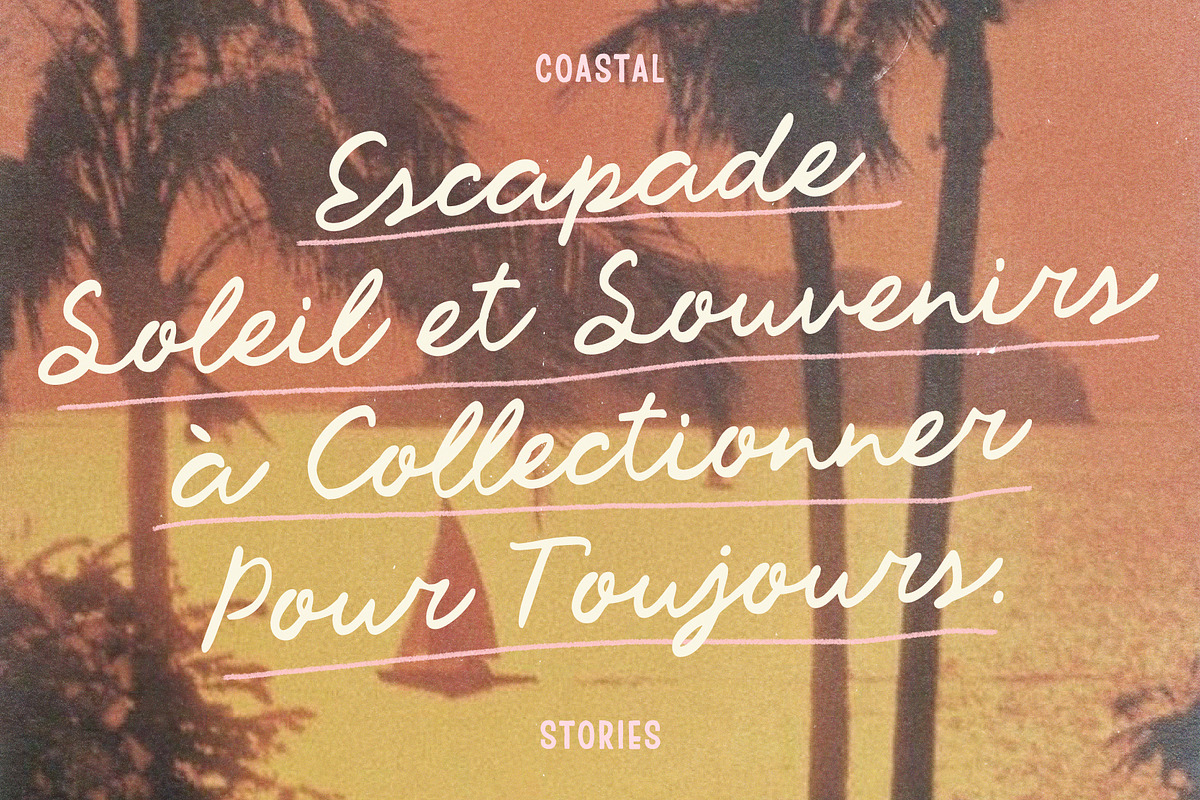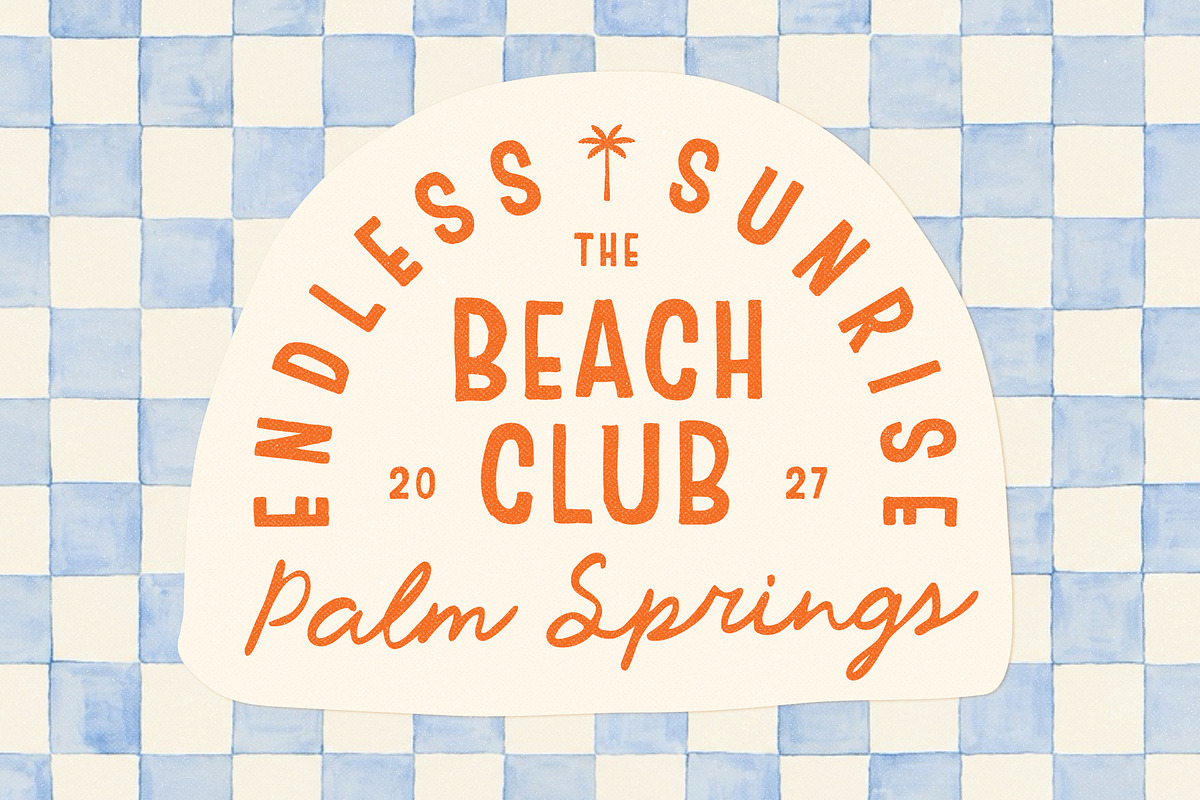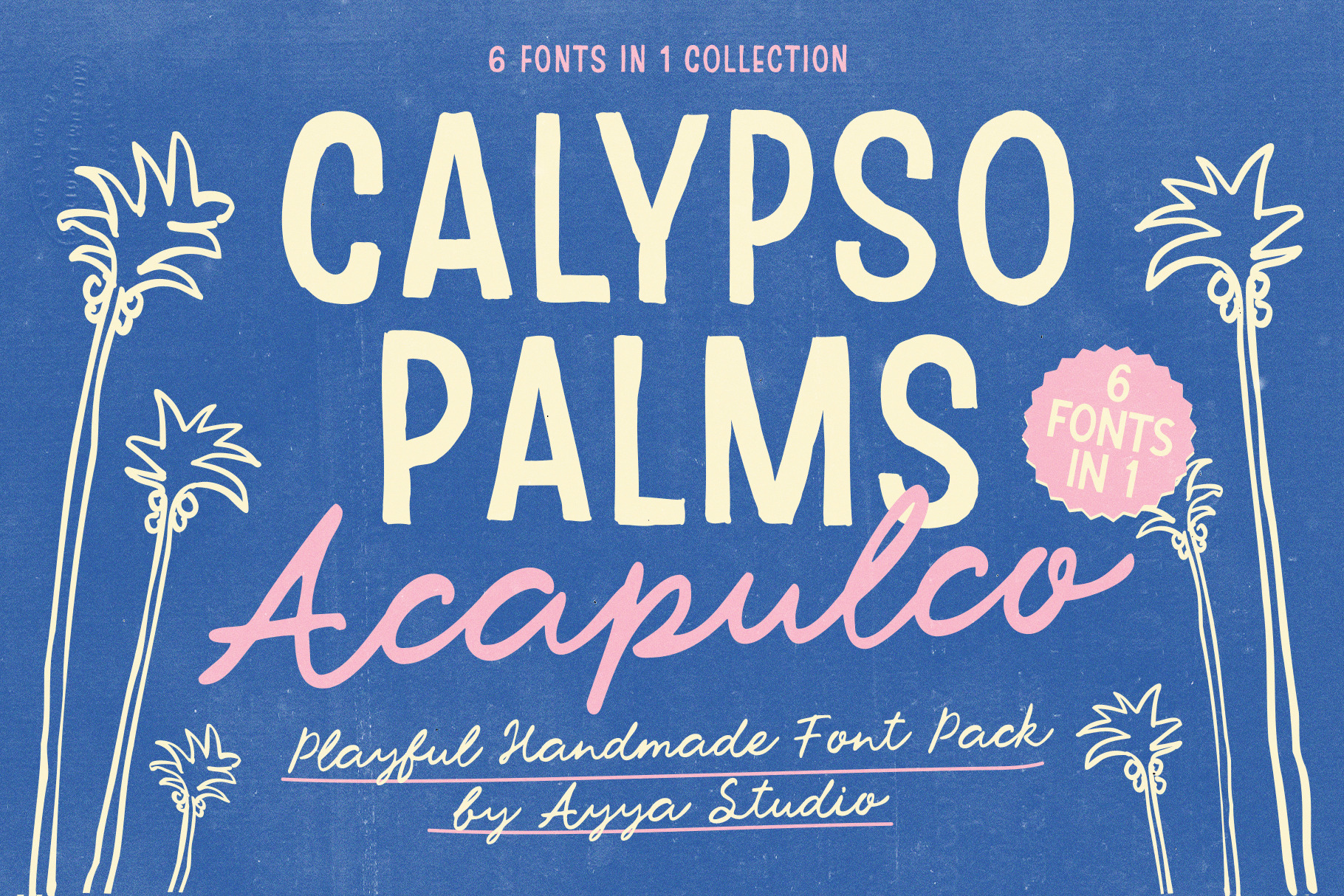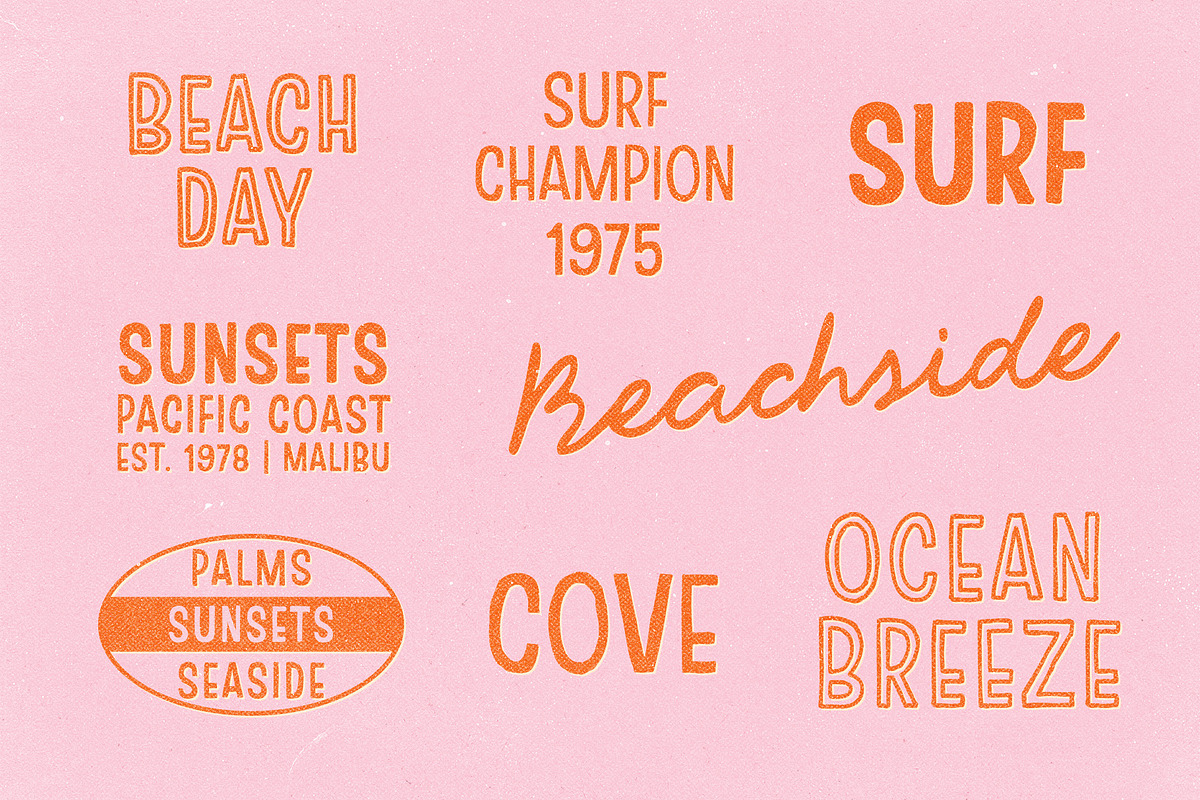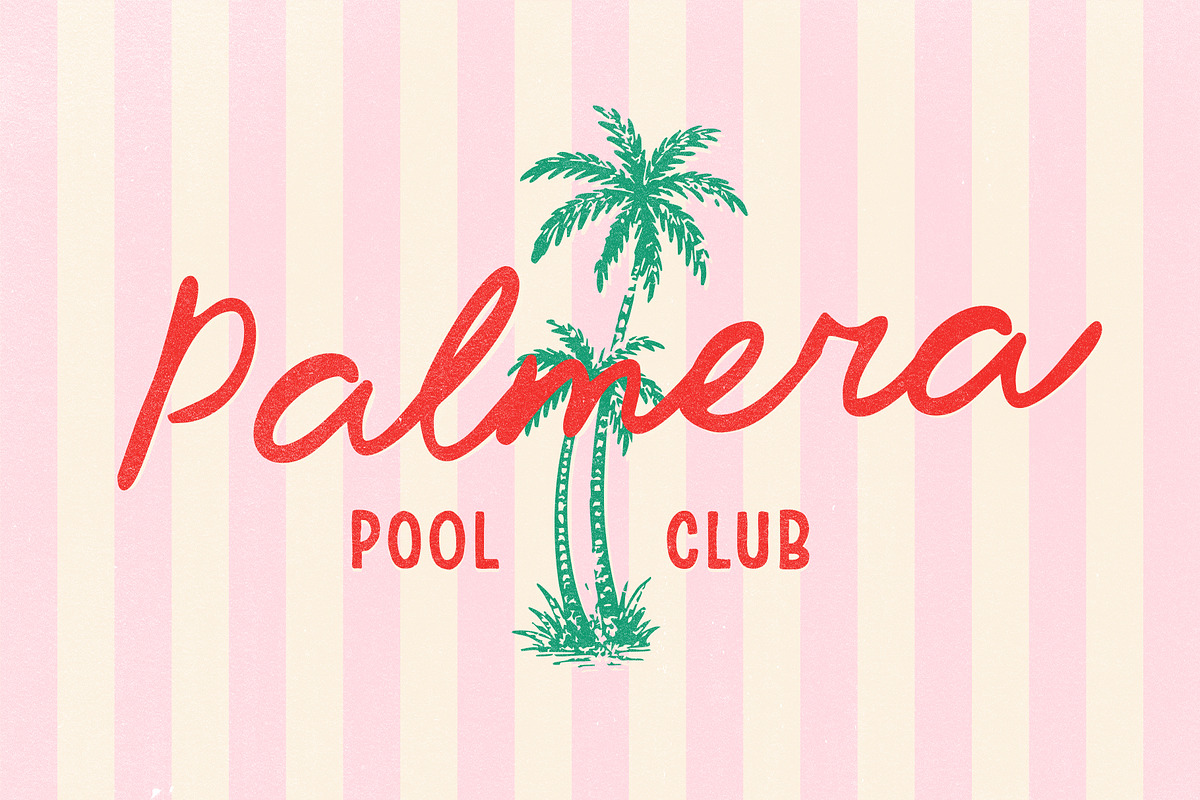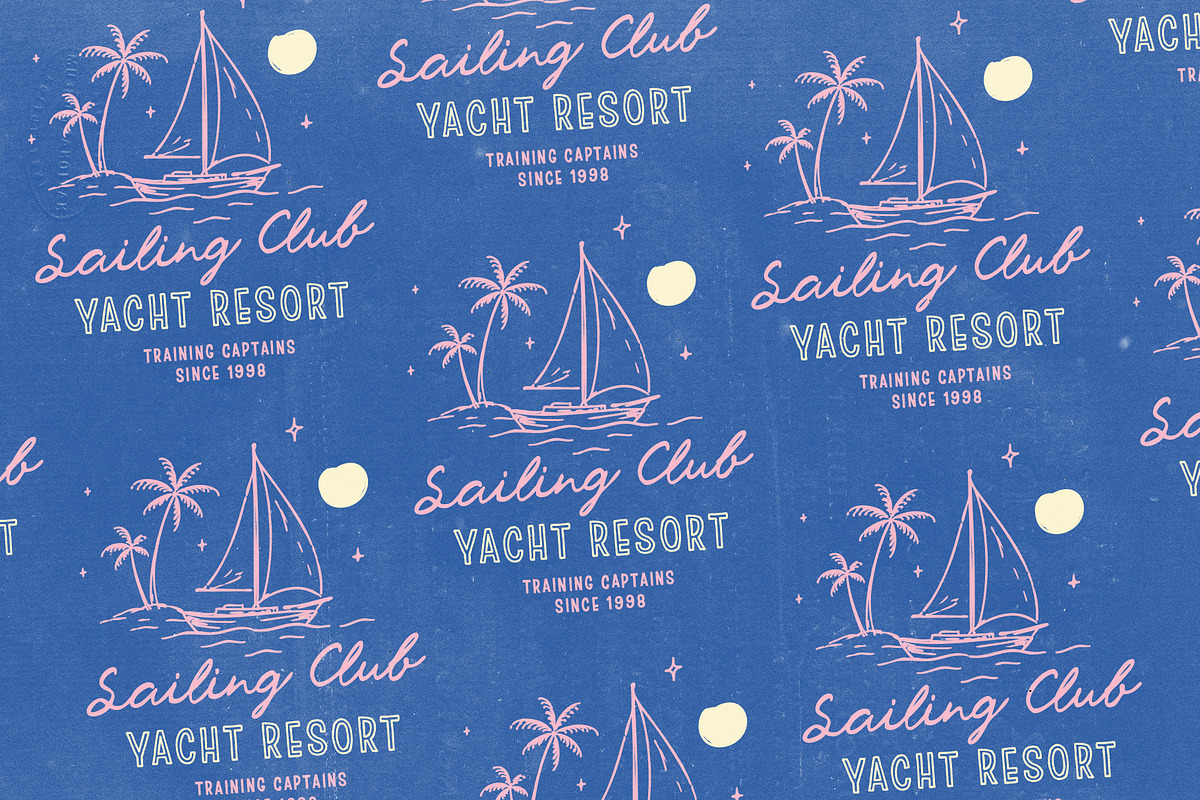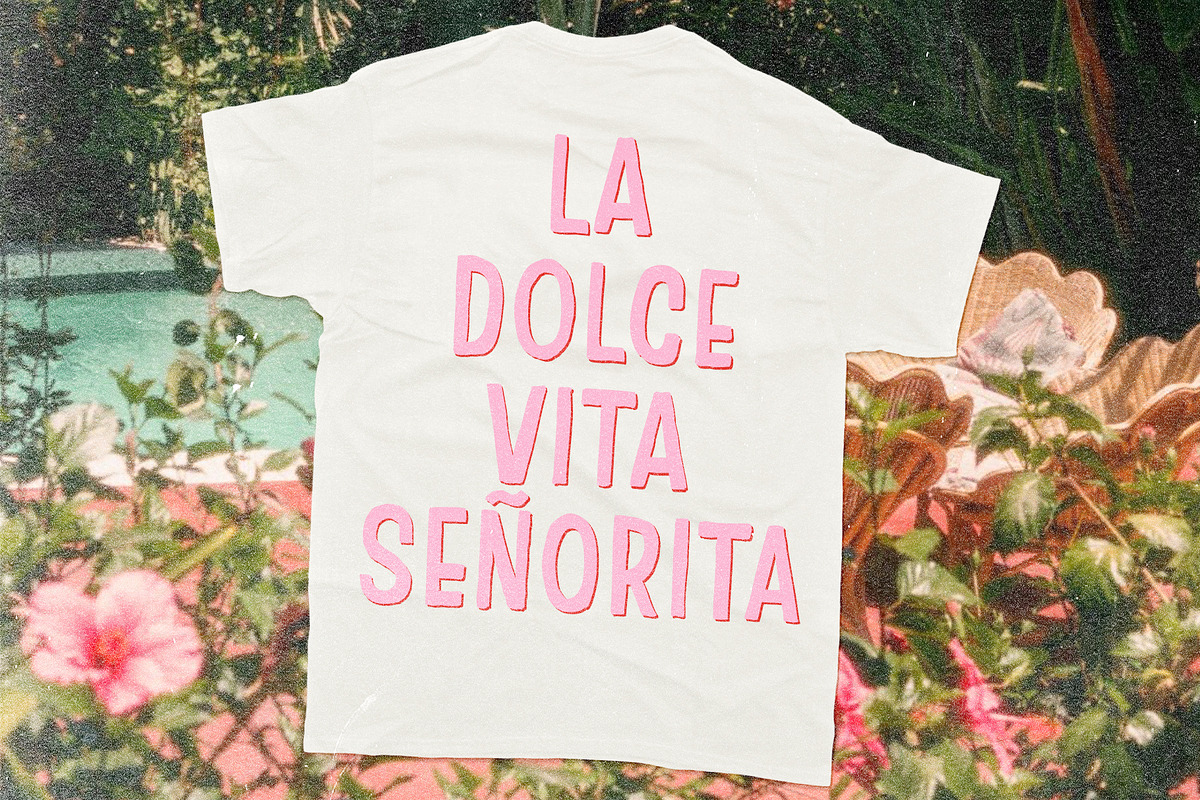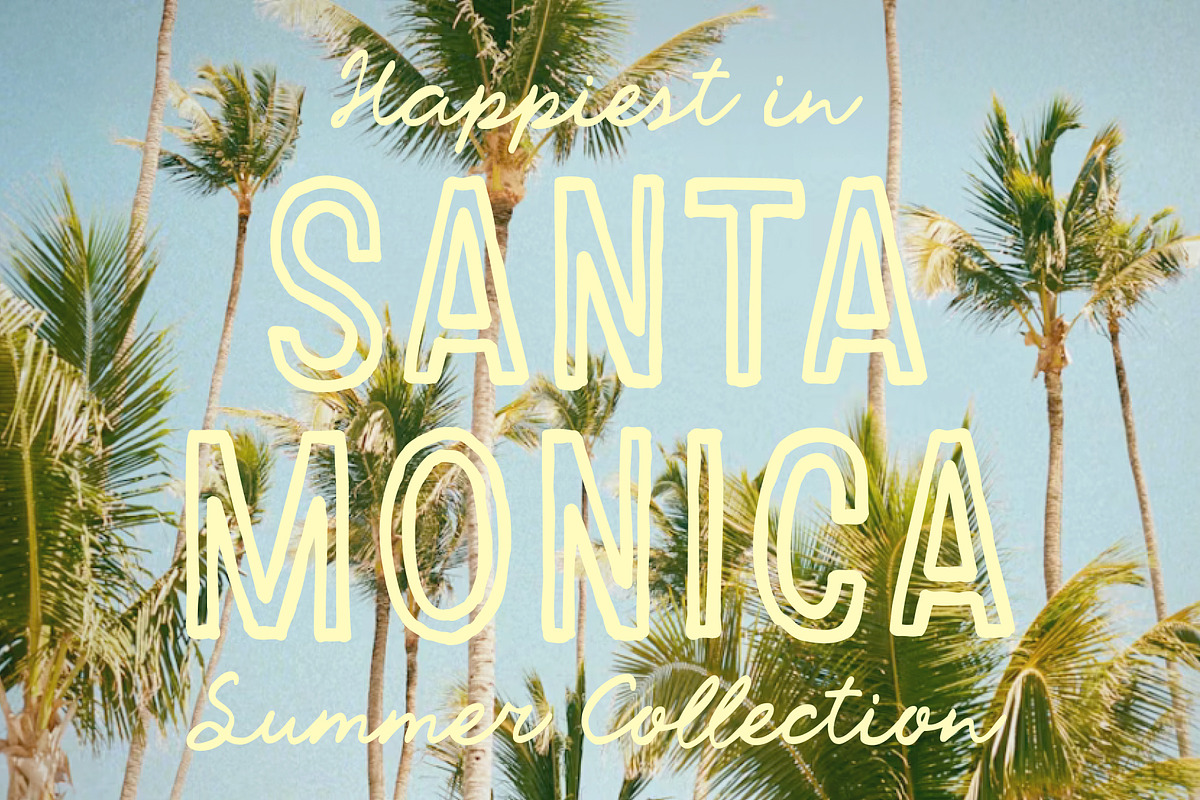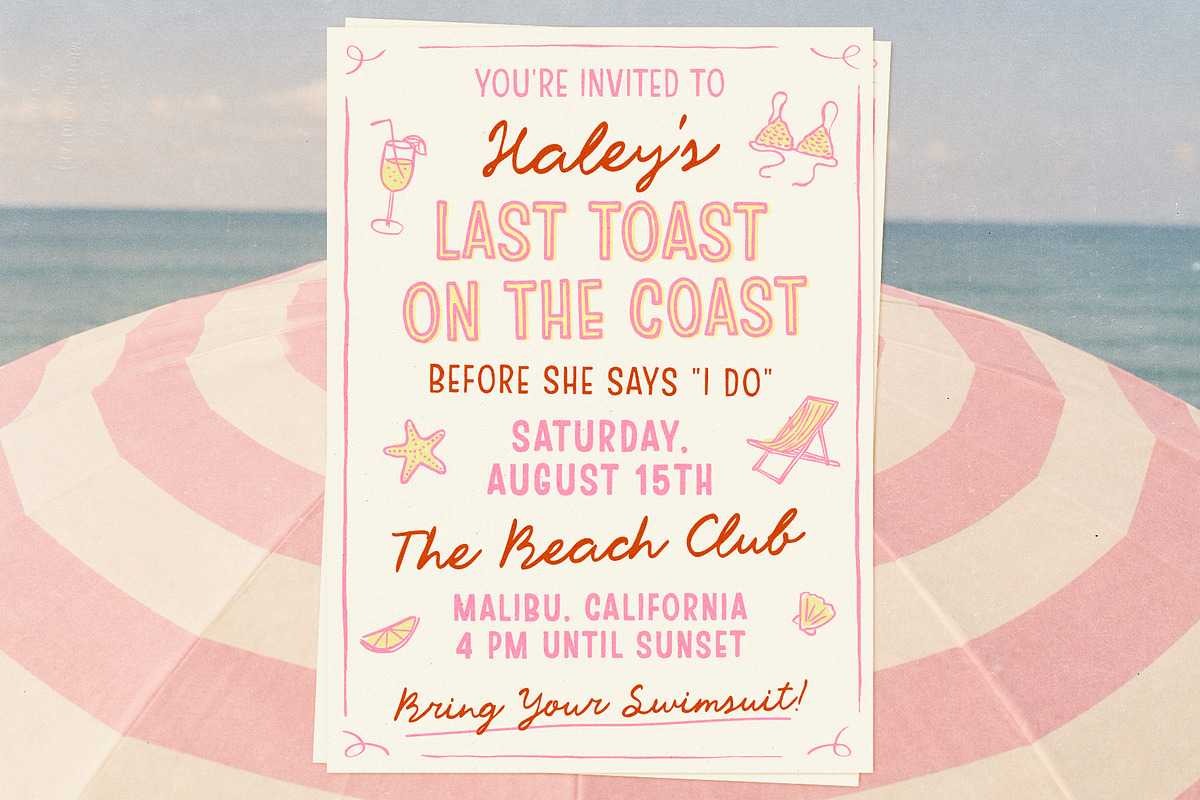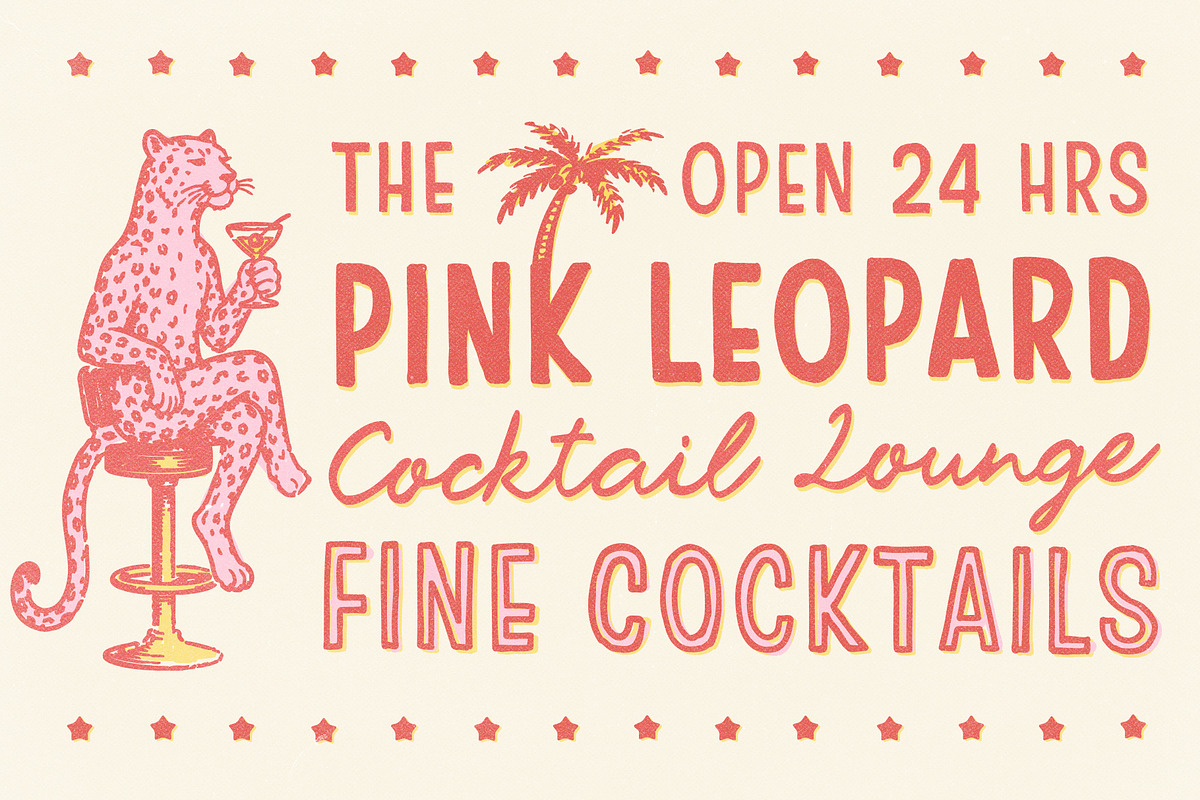
Handwritten Sign Painter Font Family
Calypso Palms is a handmade sign painter font family inspired by vintage branding, classic packaging, old labels, painted storefronts, and coastal businesses from another era.
The collection includes 6 fonts designed to work together, including a relaxed coastal script that pairs beautifully with the bold display styles. Every letter was drawn by hand, keeping the natural texture, uneven edges, and imperfect details that give vintage signage its charm.
Perfect for vintage-inspired branding, sign painter logos and labels, coastal and beach-themed projects, packaging and product design, wedding invitations and stationery, restaurant menus and café branding, travel posters and souvenir graphics, apparel and merchandise, editorial layouts and magazine covers, social media graphics, and marketing materials.
Use one font on its own or combine them all together — the family was built to play nicely as a set. :)